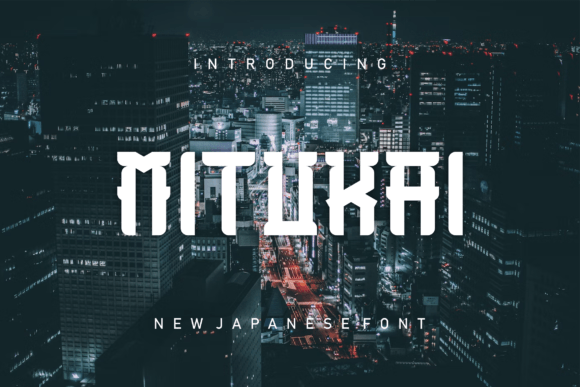
Behold, Mitukai Font – A Typographic Odyssey to Enchant Your Designs
In the realm of digital artistry, where visual expression reigns supreme, the choice of font holds immense power. With its ability to evoke emotions, convey messages, and captivate audiences, the right font can transform your designs from mere pixels into masterpieces. Allow us to introduce you to Mitukai Font, a display font of exquisite beauty, hailing from the depths of Japanese culture.
Mitukai Font: A Cultural Tapestry Woven into Each Glyph
Immerse yourself in the rich heritage of Japan as you explore the intricate details and delicate curves of Mitukai Font. Each character, meticulously crafted, carries the essence of Japanese aesthetics, offering a unique blend of tradition and modernity. Whether you're a seasoned designer or just starting your typographic journey, Mitukai Font will be your faithful companion, guiding you towards creative excellence.
An Arsenal of Typographic Versatility
With Mitukai Font gracing your design toolkit, the possibilities are boundless. Its inherent versatility allows it to seamlessly adapt to a wide array of projects, from elegant letterheads and captivating posters to visually striking social media posts and eye-catching website designs. Unleash your creativity and witness the transformative power of Mitukai Font as it elevates your designs to unprecedented heights.
The Perfect Font for Your Letterhead: A Statement of Distinction
In the world of business, first impressions are paramount. Your letterhead serves as a powerful introduction to your company, conveying professionalism, trustworthiness, and attention to detail. Mitukai Font, with its refined appearance and undeniable elegance, will elevate your letterhead to new levels of sophistication. Let your words dance upon the page, carried by the graceful strokes of Mitukai Font, leaving a lasting impression on clients and partners alike.
Beyond Letterheads: A Font for Limitless Creativity
While Mitukai Font excels as the perfect choice for letterheads, its versatility knows no bounds. Its captivating presence enhances posters, flyers, and brochures, adding a touch of allure to your marketing materials. Transform your social media presence with visually stunning posts adorned with Mitukai Font, captivating your audience and leaving them yearning for more. Craft website designs that exude sophistication and style, utilizing Mitukai Font to guide users through an immersive digital experience.